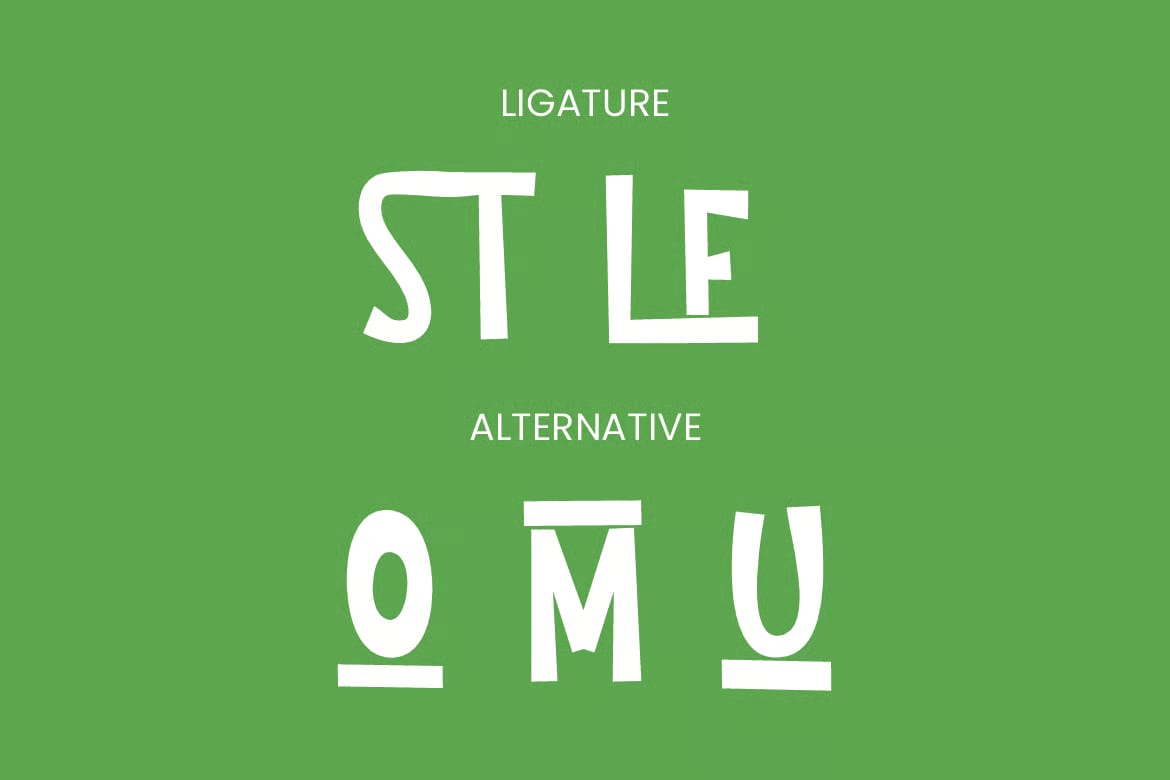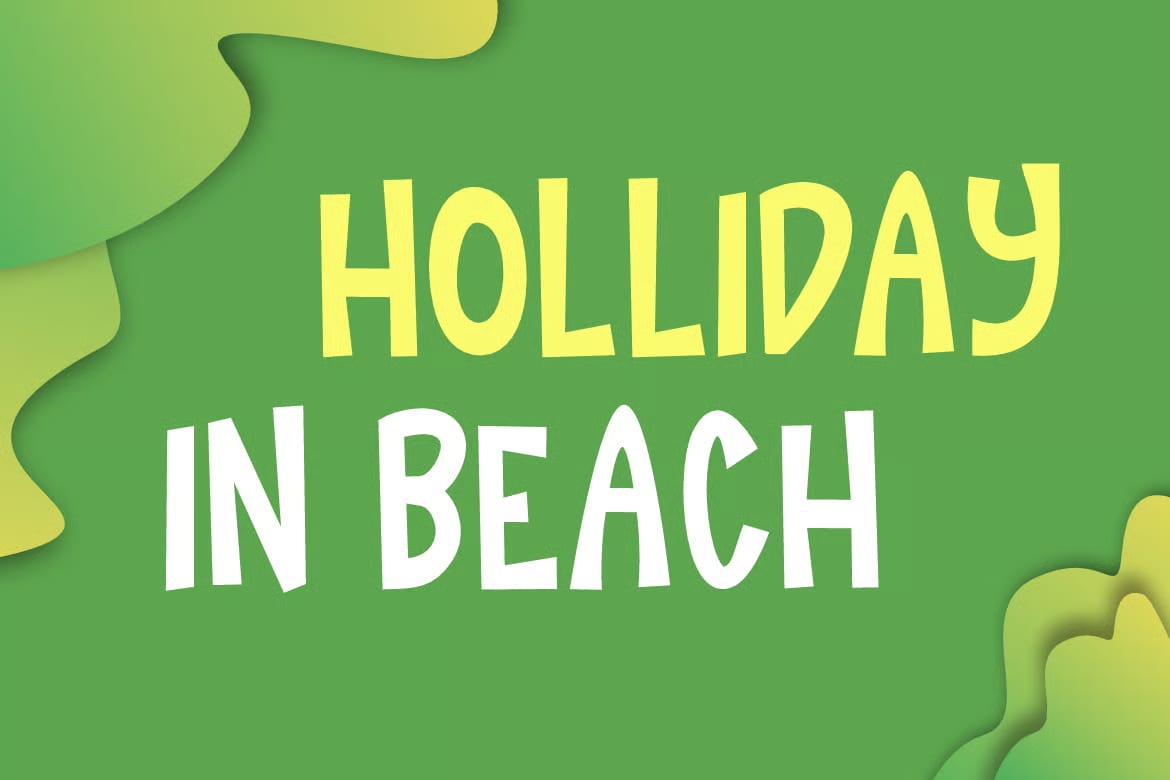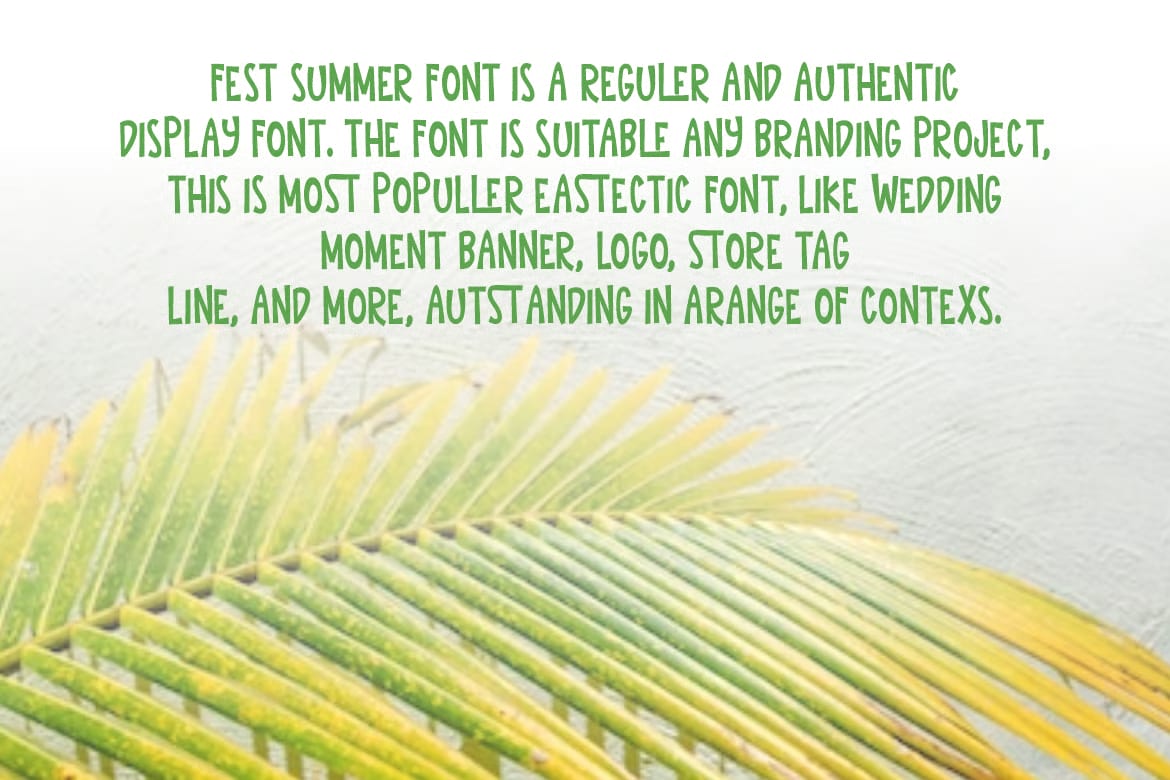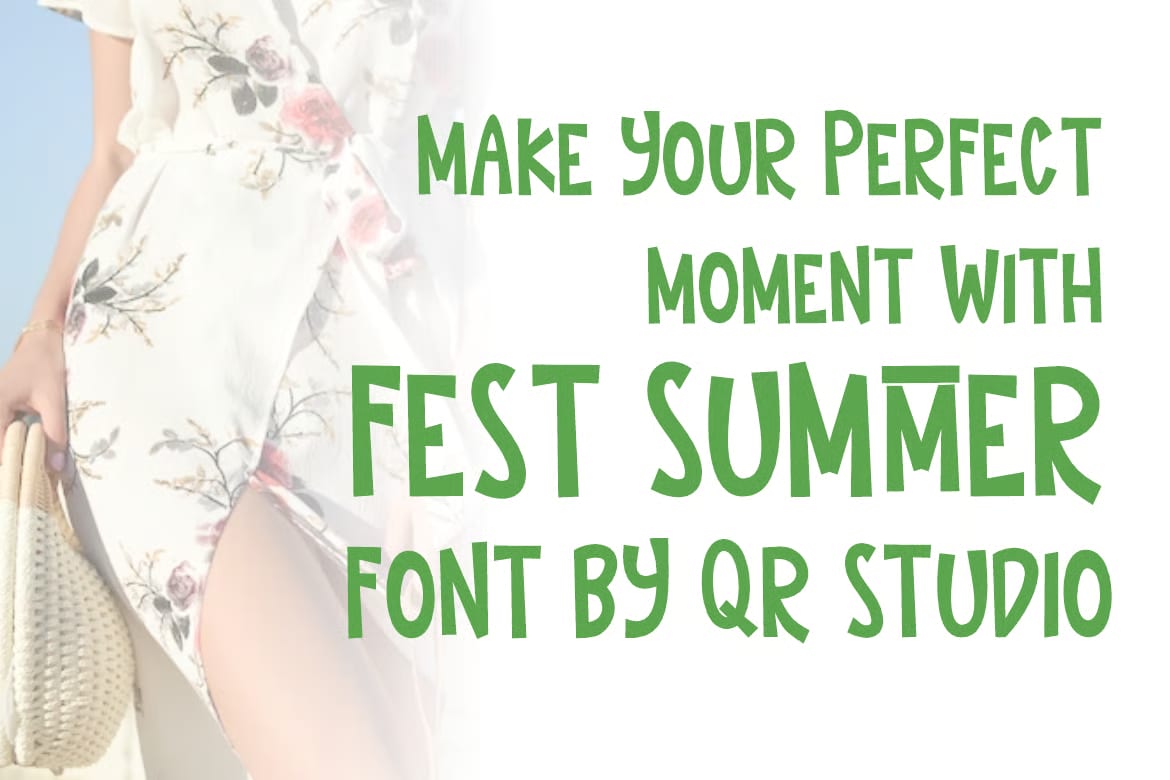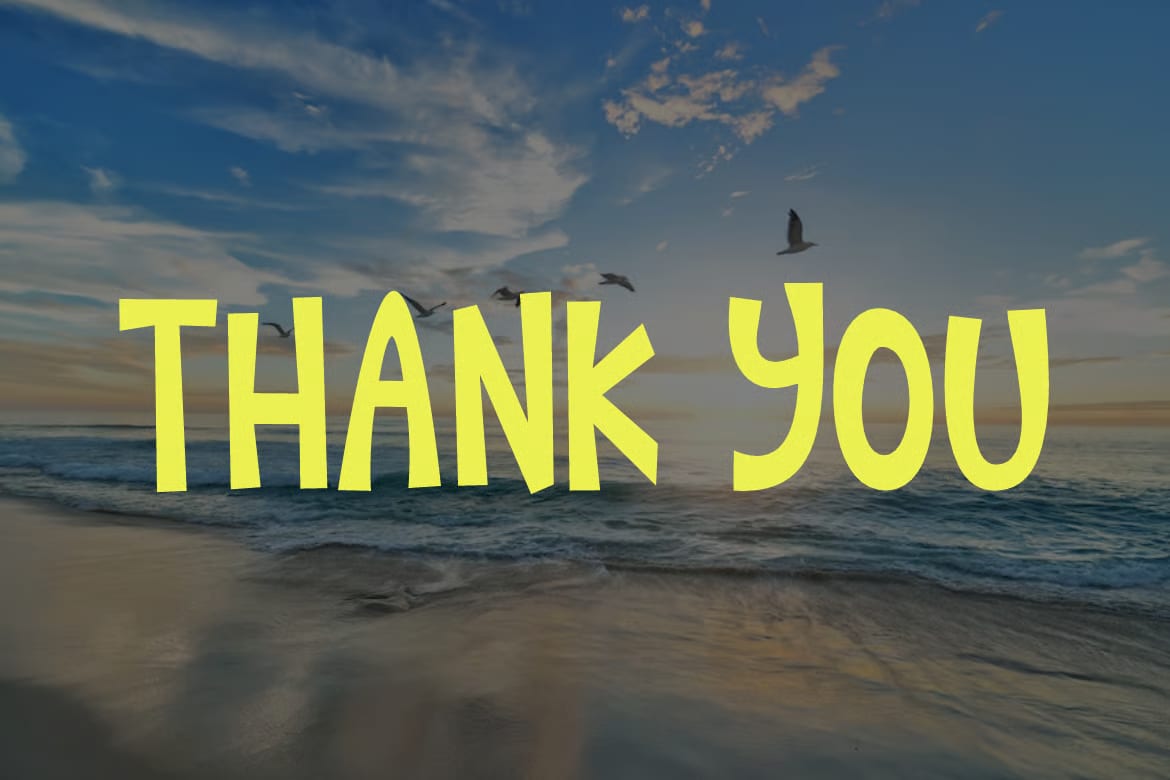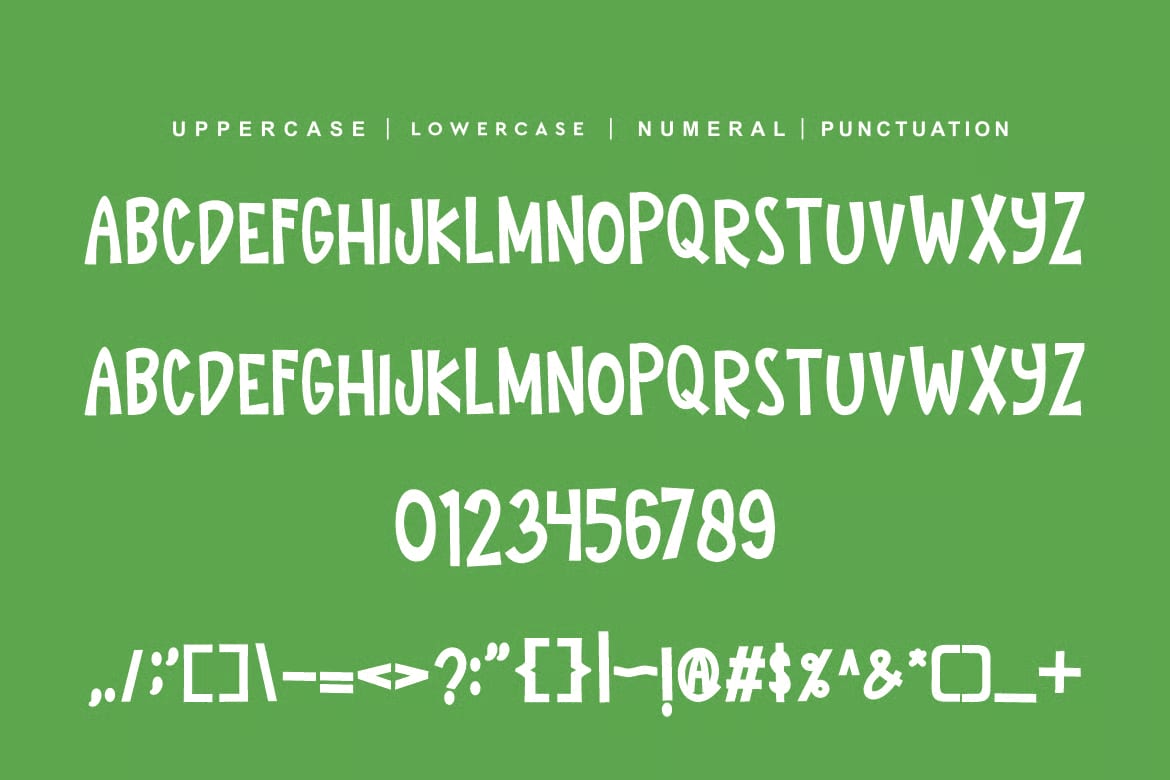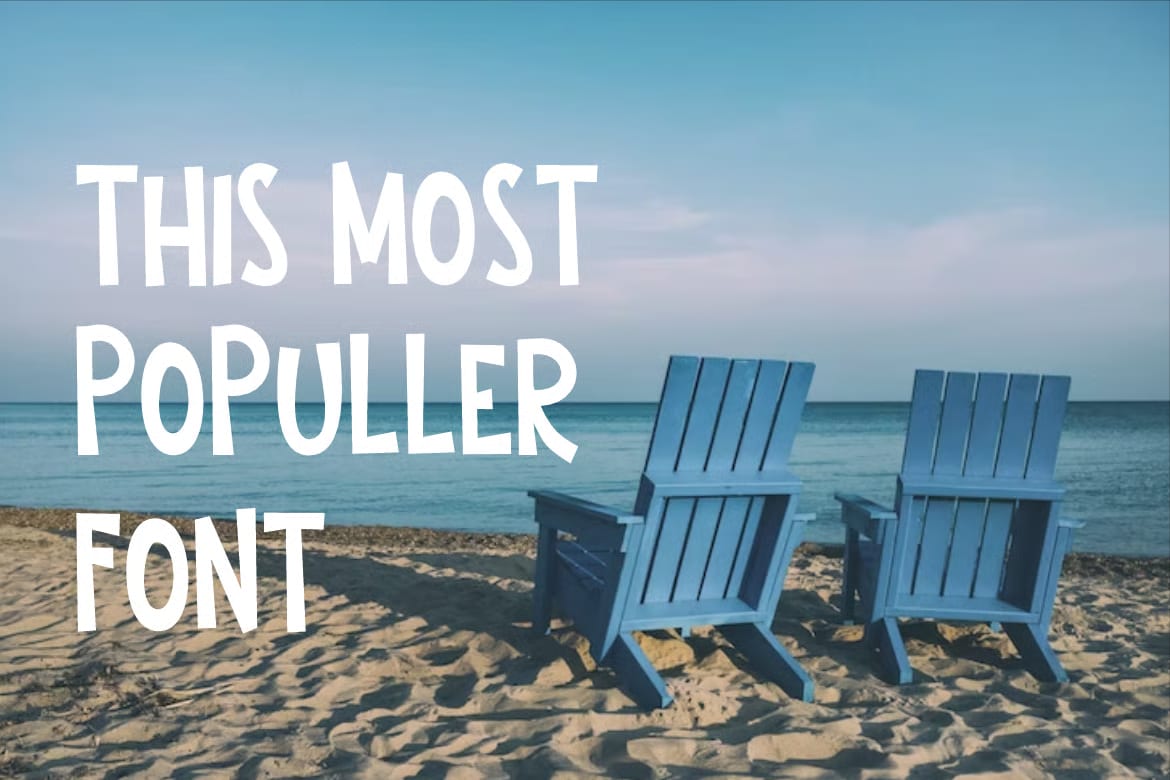
This free display font has a bold, authentic look that works well when you want text to stand out. It has a lively summer feel, but it is also flexible enough to use in a range of creative projects, from logos and branding pieces to greeting cards and seasonal designs.
The style feels expressive and eye-catching, making it a good choice for headlines, titles, and other text that needs a strong presence. It can fit playful themes as well as more modern layouts, depending on how you pair it with colors and graphics.
Because it has a clean display character and normal spacing, it is easy to work into both simple and more decorative compositions. Whether you are making something fun, festive, or a little bold, this font gives your text a confident look without feeling overdone.